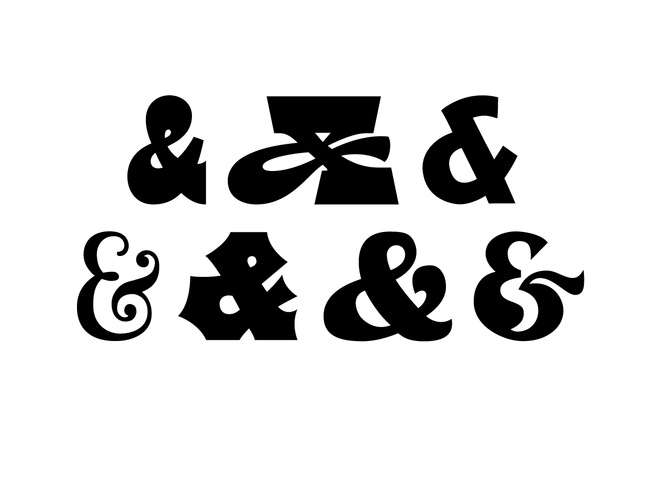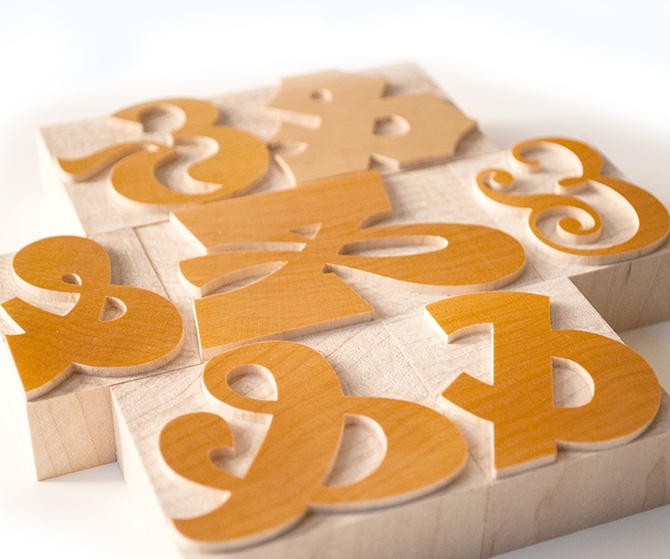
Ampersand Collection
The 26 letters of the Latin alphabet, essentially building blocks of words, are seen by many as merely a means to an end; however, for the type designer, the letterforms of the alphabet stir creativity much like a palette of oil paints does a painter. The 27th letter, or ampersand, allows the type designer to break from the bondage of a single letter and soar to new heights when creating the symbol for the Latin ligature "et," or in English "and." In many cases, its lyrical lines and flourishes sing an ode to joy, and in others the strokes simply evoke "et." Either way, the ampersand holds a special place in the design aesthetic of typography.
In that spirit, we've selected seven ampersands that celebrate its beauty into a 12-line collection. Six of them are from current VWT fonts, and one from a font in the works. Knowing that the printer has different needs all the time, we selected ampersands that would work in a variety of designs.
12-line ampersands Inland, Old Style No. 6, Aetna, Concave Tuscan, Gothic 737, Gothic Bold RS, Richard